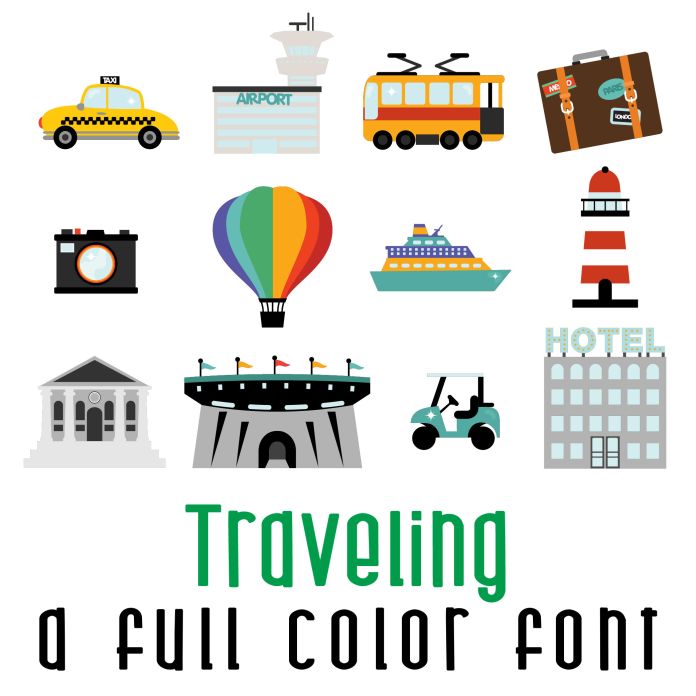
This fun full color font features 26 different traveling themed images. Perfect for cards, crafts, gifts, decor, scrapbook pages, planner stickers, and more